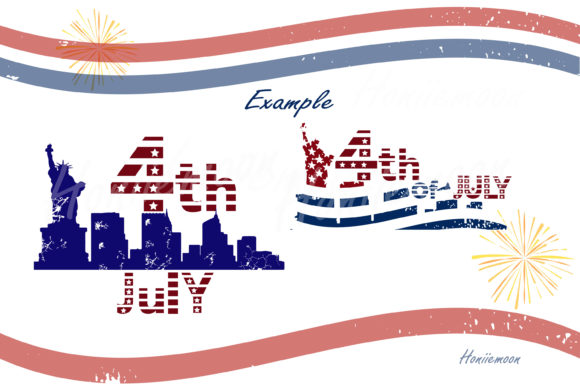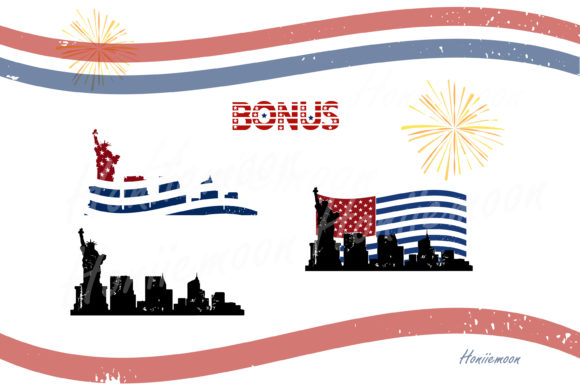
Happy 4th July Font: Add a Patriotic Touch to Your Designs
Are you looking for a font that can add a touch of patriotism and fun to your designs? Look no further than the Happy 4th July Font! This cool and fun display font is perfect for designers and crafters who want to create eye-catching and festive designs for the 4th of July celebrations.
What Makes Happy 4th July Font Special?
Happy 4th July Font is a unique and playful font that is sure to enhance each of your designs. Its cute and jolly appearance makes it perfect for creating festive and patriotic designs that will grab the attention of your audience. Whether you’re designing a poster, flyer, or social media graphic, this font is sure to make your design stand out.
Features of Happy 4th July Font
- Cool and Fun Display Font: Happy 4th July Font is a display font that is designed to make a statement. Its bold and colorful appearance makes it perfect for creating eye-catching designs.
- Cute and Jolly Appearance: This font has a playful and festive appearance that is sure to add a touch of patriotism to your designs.
- Limitless Creative Possibilities: With Happy 4th July Font, the only limit is your imagination. You can use it to create a wide range of designs, from posters and flyers to social media graphics and more.
- Colorful and Bold: This font is available in a range of colors, making it easy to match your brand’s color scheme or create a design that pops.
How to Use Happy 4th July Font in Your Designs
Using Happy 4th July Font in your designs is easy. Here are a few tips to get you started:
- Pair it with Other Fonts: Happy 4th July Font pairs well with other fonts, making it easy to create a unique and visually appealing design.
- Experiment with Colors: Try out different colors to find the one that works best for your design. You can also use the font’s bold and colorful appearance to create a design that stands out.
- Add Graphics and Images: Add graphics and images to your design to make it more visually appealing. Happy 4th July Font works well with illustrations, patterns, and other design elements.
Happy 4th July Font is perfect for designers and crafters who want to create festive and patriotic designs for the 4th of July celebrations. Whether you’re creating designs for personal use or for clients, this font is sure to be a hit.
Designers can use Happy 4th July Font to create:
- Posters and Flyers: Create eye-catching posters and flyers for 4th of July events and celebrations.
- Social Media Graphics: Create festive and patriotic social media graphics that are sure to engage your audience.
- Party Invitations: Create custom party invitations that set the tone for a fun and festive celebration.
Happy 4th July Font is a cool and fun display font that is perfect for designers and crafters who want to add a touch of patriotism and fun to their designs. Its cute and jolly appearance makes it perfect for creating festive and patriotic designs that will grab the attention of your audience. With its limitless creative possibilities, Happy 4th July Font is sure to be a hit with designers and crafters of all levels.